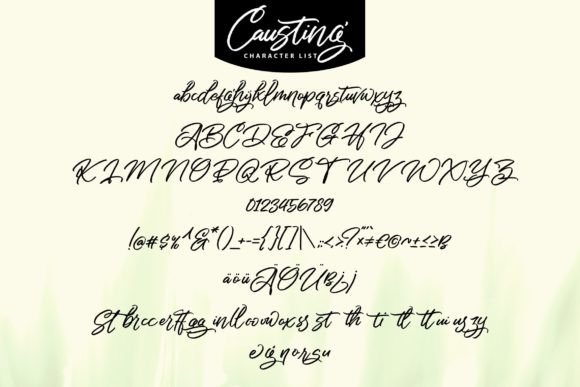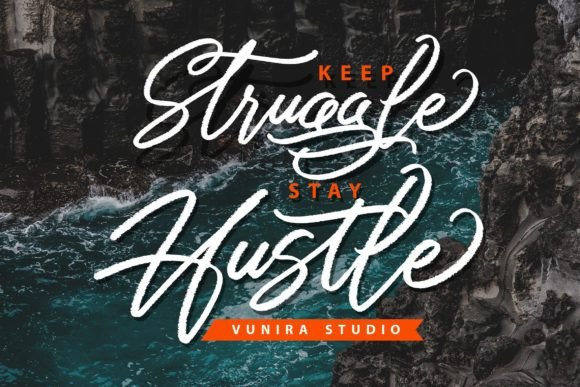
The Quest for the Perfect Handwritten Font: Discovering Causting
I’ll never forget the time I was working on a project for a client who needed a custom greeting card design. I had all the elements ready – the graphics, the layout, the colors – but I was stuck on one thing: the font. I wanted something that looked like it was written on a marker board, something casual yet charming. After hours of browsing through font libraries, I stumbled upon Causting, a handwritten script font that instantly caught my attention. In this article, I’ll share my experience with Causting, its features, and how you can make the most of it in your designs.
First Impressions: What I Love About Causting
Causting is a beautiful, handwritten script font that looks and feels like it was written on a marker board. Here are some things that I love about it:
- ✨ Unique and charming character set that’s perfect for greeting cards, invitations, and motivational quotes
- ✅ PUA encoded, making it easy to access all the amazing glyphs and ligatures
- 💫 Works well with both digital and print designs
- 📝 Casual and friendly feel that’s perfect for creative projects
The Honest Review: What You Should Know
While Causting is an amazing font, there are a few things to keep in mind:
- ⚠️ Some letters may not be suitable for body text due to their casual nature
- 🤔 Limited availability of font variations (e.g., bold, italic)
The Story Behind Causting
While I couldn’t find any information on the designer’s inspiration, I imagine that Causting was created with the intention of capturing the carefree, creative spirit of handwritten text. The font’s casual feel and charming character set make it perfect for a wide range of creative projects.
| Font Name | Causting Font |
| Author | Vunira |
| Is Causting suitable for body text? | While Causting is a beautiful font, it’s best suited for headings and titles due to its casual nature. |
Overall, Causting is a beautiful, handwritten script font that’s perfect for creative projects. With its charming character set and ease of use, it’s a great addition to any designer’s toolkit.